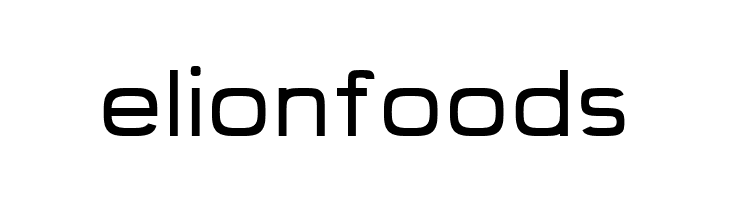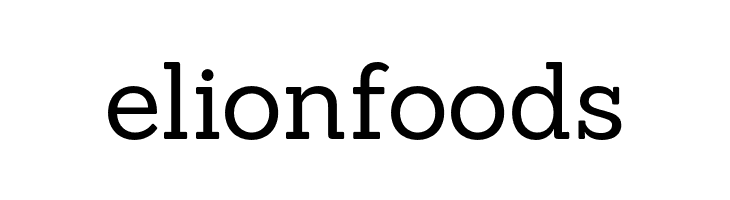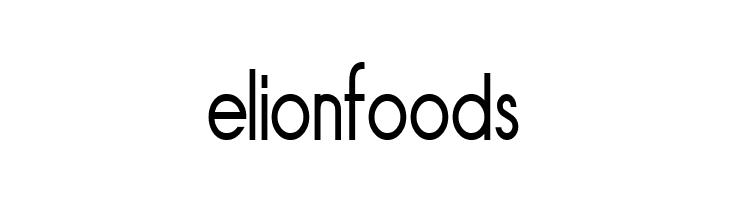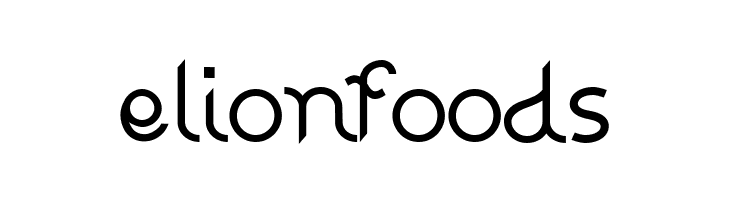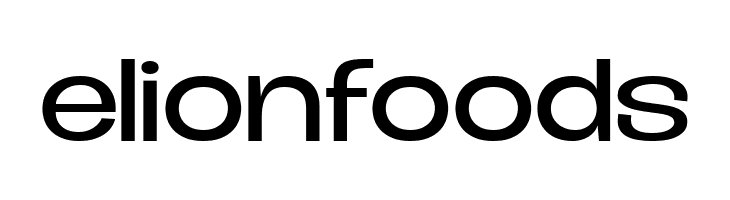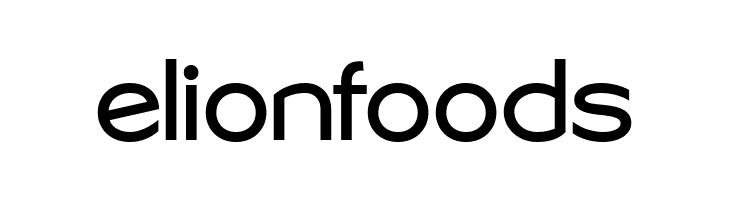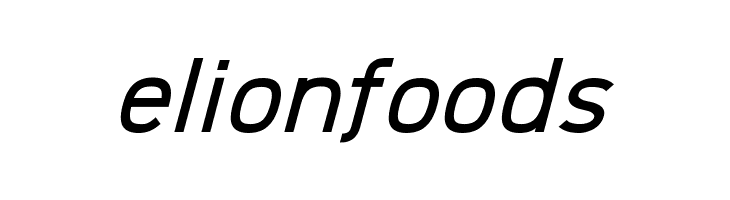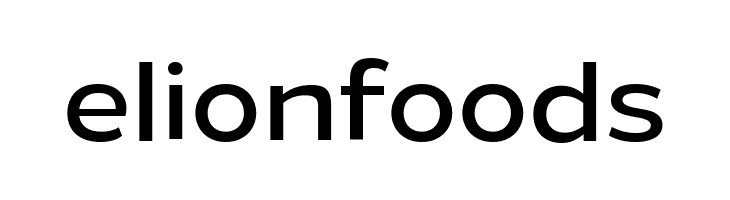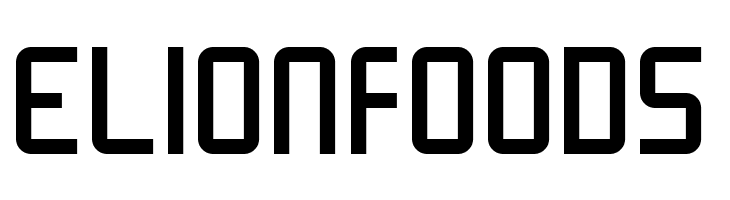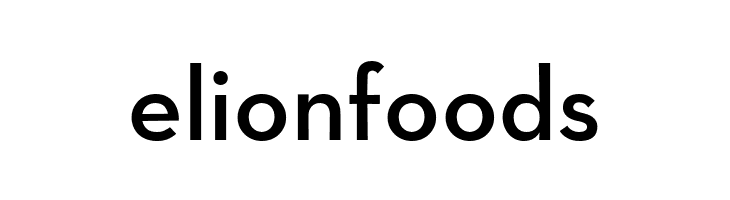
A bold, modern sans-serif font with a condensed and professional style.
A modern, geometric sans-serif font with a clean and professional look.
A robust slab serif font with balanced proportions and strong serifs.
A modern, narrow sans-serif font with a sleek and professional appearance.
A modern, geometric sans-serif font with a clean and professional look.
A modern geometric font with clean lines and a professional appearance.
A modern sans-serif font with expanded, clean letterforms and a sleek appearance.
A modern, medium-weight sans-serif font with a sleek and professional appearance.
A modern, geometric sans-serif font with a clean and bold appearance.
A modern, expanded sans-serif font with a clean and professional appearance.
A modern, condensed font with excellent readability and a professional appearance.
A modern, bold, and italic sans-serif font with a sleek design.
A modern, sans-serif font with a clean, condensed style and medium contrast.
A modern, geometric font with clean lines and consistent stroke width.
A bold, modern sans-serif font with clean lines and uniform strokes.
A modern, geometric sans-serif font with a clean and professional look.
A modern, italic sans-serif font with a sleek and dynamic appearance.
A sleek, modern italic font with a dynamic and professional appearance.
A modern, condensed sans-serif font with clean lines and uniform strokes.
A modern, condensed sans-serif font with a clean and professional look.
A modern, geometric sans-serif font with a clean and professional look.
A modern, geometric sans-serif font with balanced proportions and a professional appearance.
A modern, italicized font with a sleek and professional appearance.
A geometric, modern font with bold, clean lines and a slightly condensed style.
A modern, geometric typeface with clean lines and balanced proportions.
A clean, geometric font with a modern and balanced design.
A modern, geometric font with clean lines and rounded edges, perfect for bold headlines.
A bold, modern font with a playful yet professional style.
An elegant, light, and italic serif font with a modern touch.
A bold, modern sans-serif font with clean, geometric lines and rounded edges.
A modern, narrow sans-serif font with a clean and professional look.
A sleek, modern, light italic font with a slightly condensed style.
A sleek, modern italic font with a condensed and professional appearance.